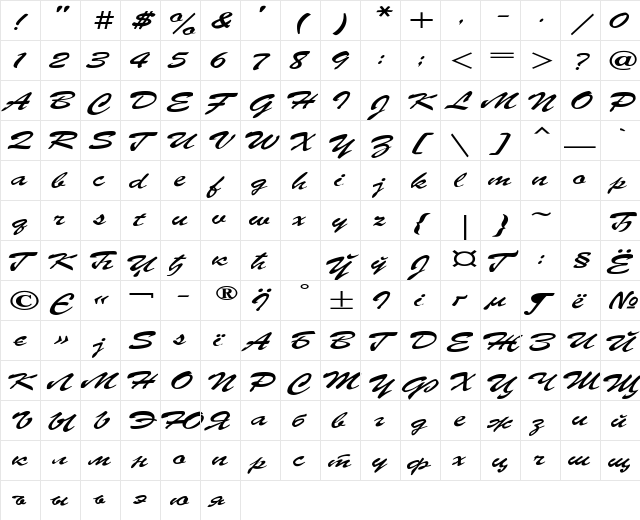
Parsek Expanded Regular
Design Context for Parsek Expanded Typeface
Parsek Expanded is a composed and adaptable typeface that performs quietly and consistently across a wide range of design contexts.